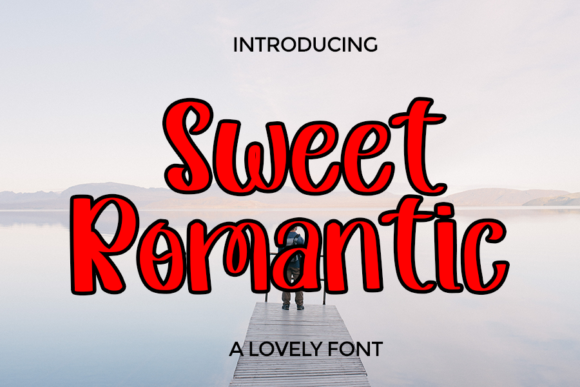
Step into the world of delicate elegance and unparalleled charm with Sweet Romantic Font, a script font that embodies the essence of sophistication and grace. Its meticulously crafted characters exude a timeless charm, while its flowing lines and elegant swashes add a touch of romantic flair to any design.
Designed with a keen attention to detail, Sweet Romantic Font features a diverse array of stylish alternates and ligatures, empowering you to unleash your creativity and add a personal touch to your projects. Whether you're crafting a heartfelt love letter, designing an enchanting wedding invitation, or creating a captivating logo, Sweet Romantic Font will elevate your designs to new heights of beauty and refinement.
With its versatility and adaptability, Sweet Romantic Font seamlessly adapts to a multitude of design styles. Its natural and understated elegance lends itself perfectly to minimalist designs, while its ability to convey a sense of warmth and intimacy makes it ideal for creating designs that resonate with audiences on a deeper level.
Immerse yourself in the world of Sweet Romantic Font and discover a font that not only enhances your designs but also captivates and engages your audience. Its timeless beauty and captivating charm will leave a lasting impression, ensuring that your designs stand out from the ordinary and make a statement of elegance and sophistication.